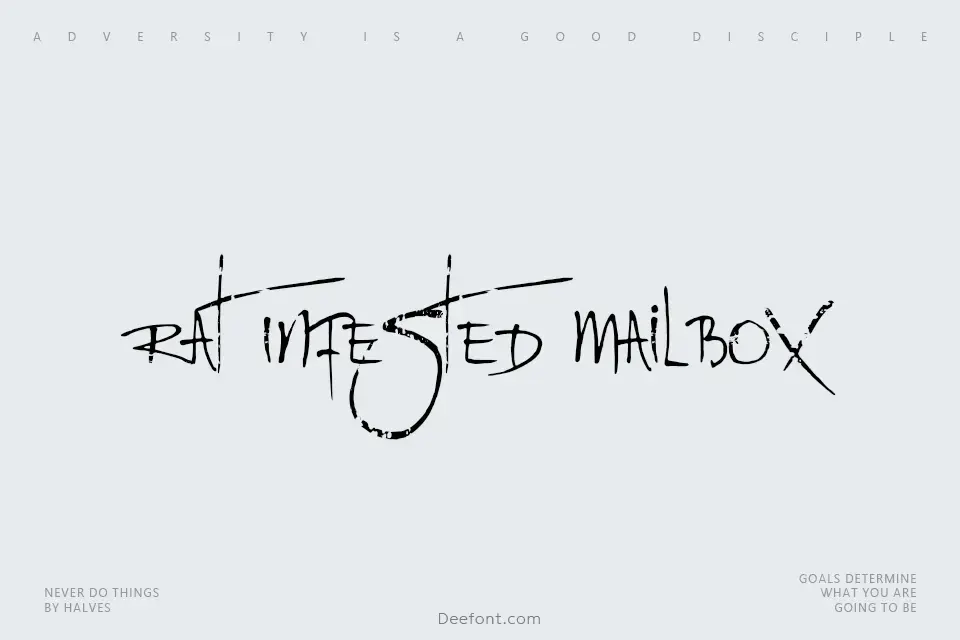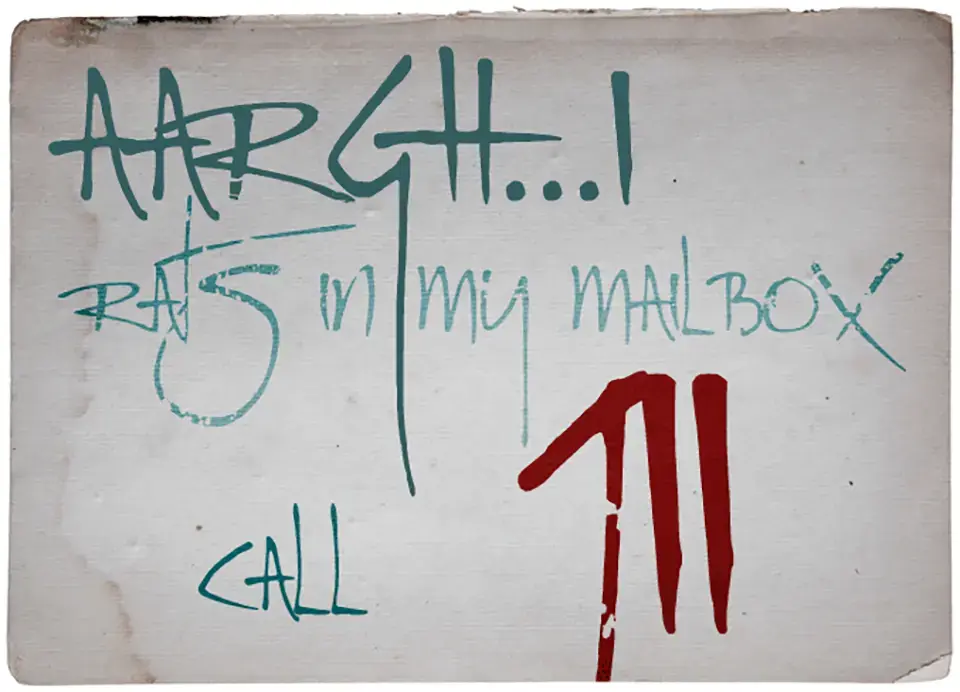
Rat Infested Mailbox Font
Rat Infested Mailbox is a chaotic, distressed display font featuring irregular strokes and hand-drawn aesthetics ideal for horror-themed projects, Halloween posters, and eye-catching titles. With its erratic letterforms and weathered appearance, this font excels in creating bold, edgy typography for creative designs. Perfect for album covers, movie titles, and grunge-inspired graphics requiring maximum visual impact and personality.